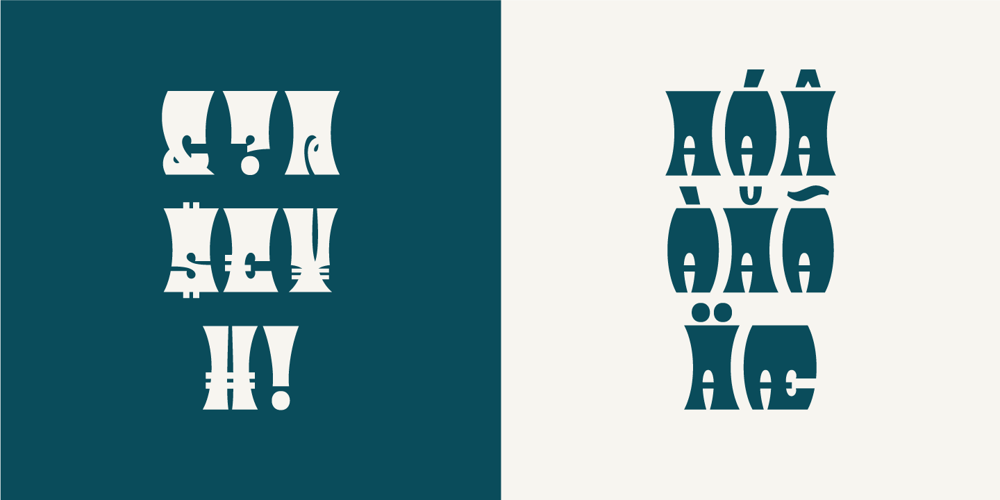
Desert Island Font Family was designed by Josh Carnley and published by Carnley Design Co.. Desert Island contains 1 styles and family package options. Take a trip to a remote tropical island with the Desert Island typeface. This display typeface is great for headlines and is sure to add a touch of island mystique to your work. The uppercase set is concave and the lowercase set is convex. Alternate each letter to create type that fits perfectly together or use all uppers or all lowers for unique lettering. It is 4 fonts in 1! Stamp illustration created by Adam Grason of studiograson.com/.